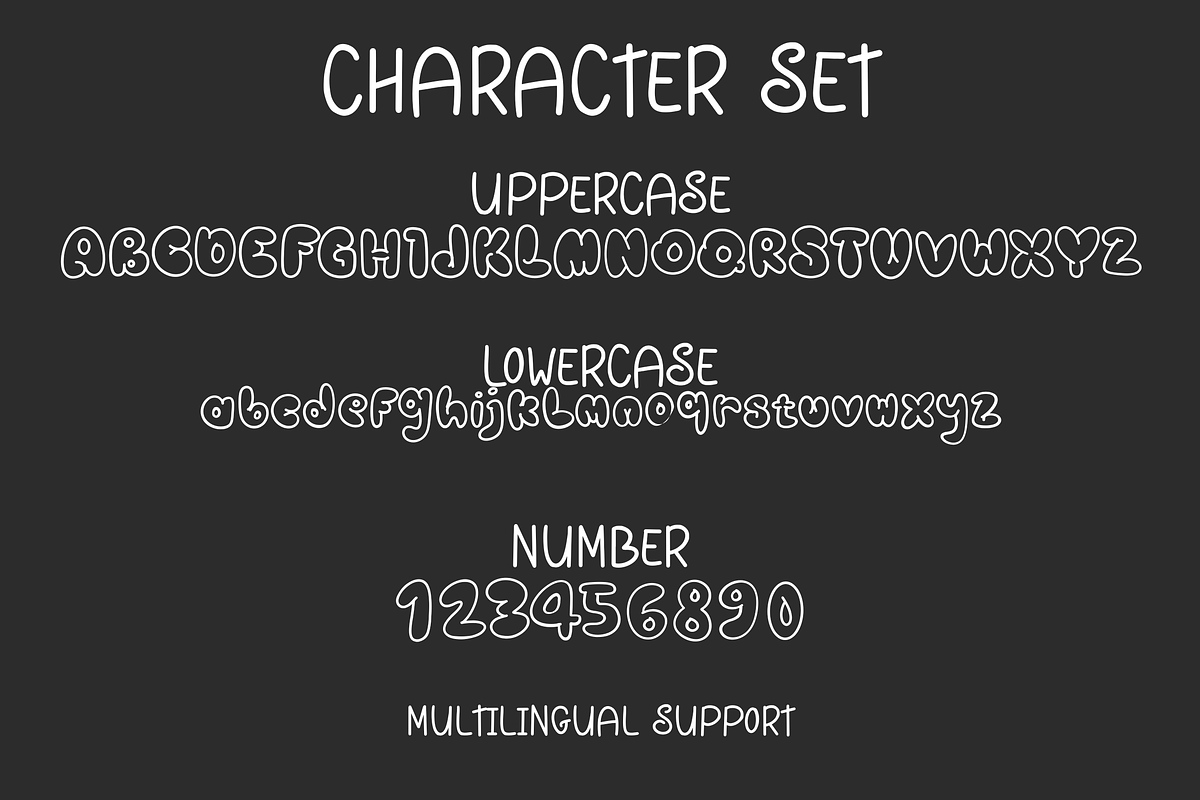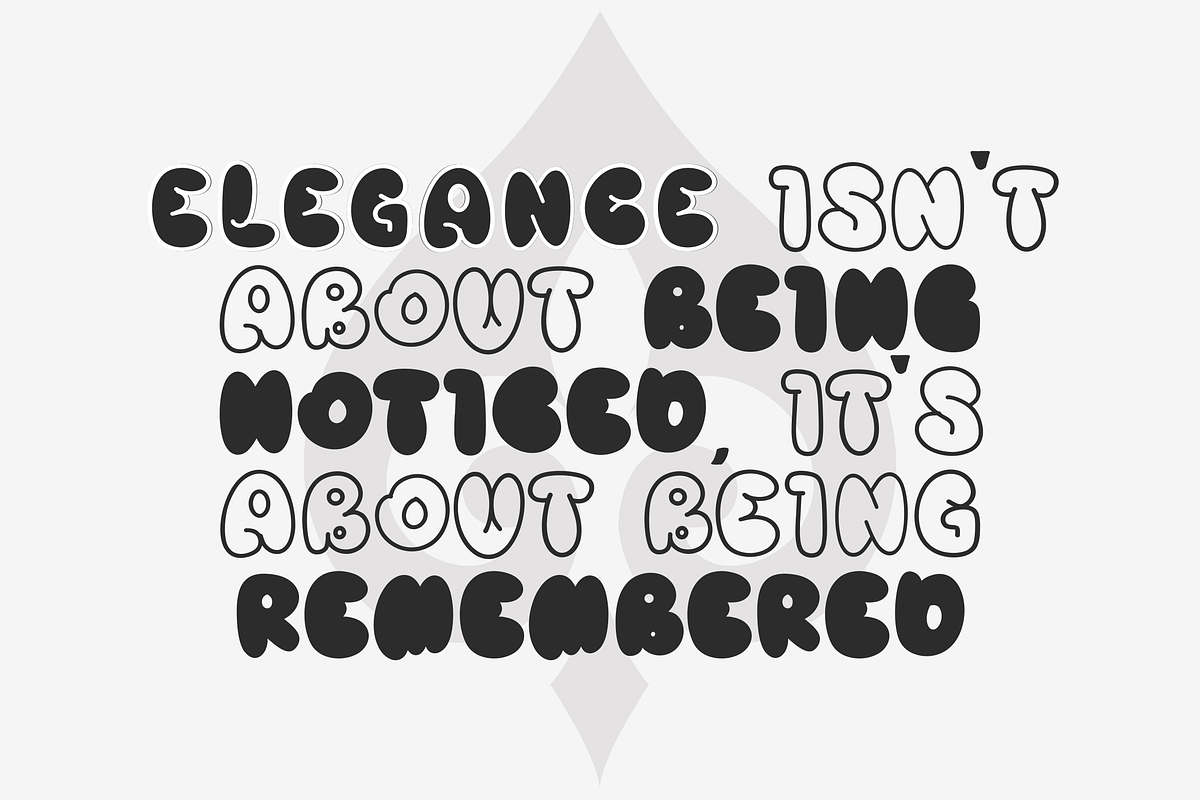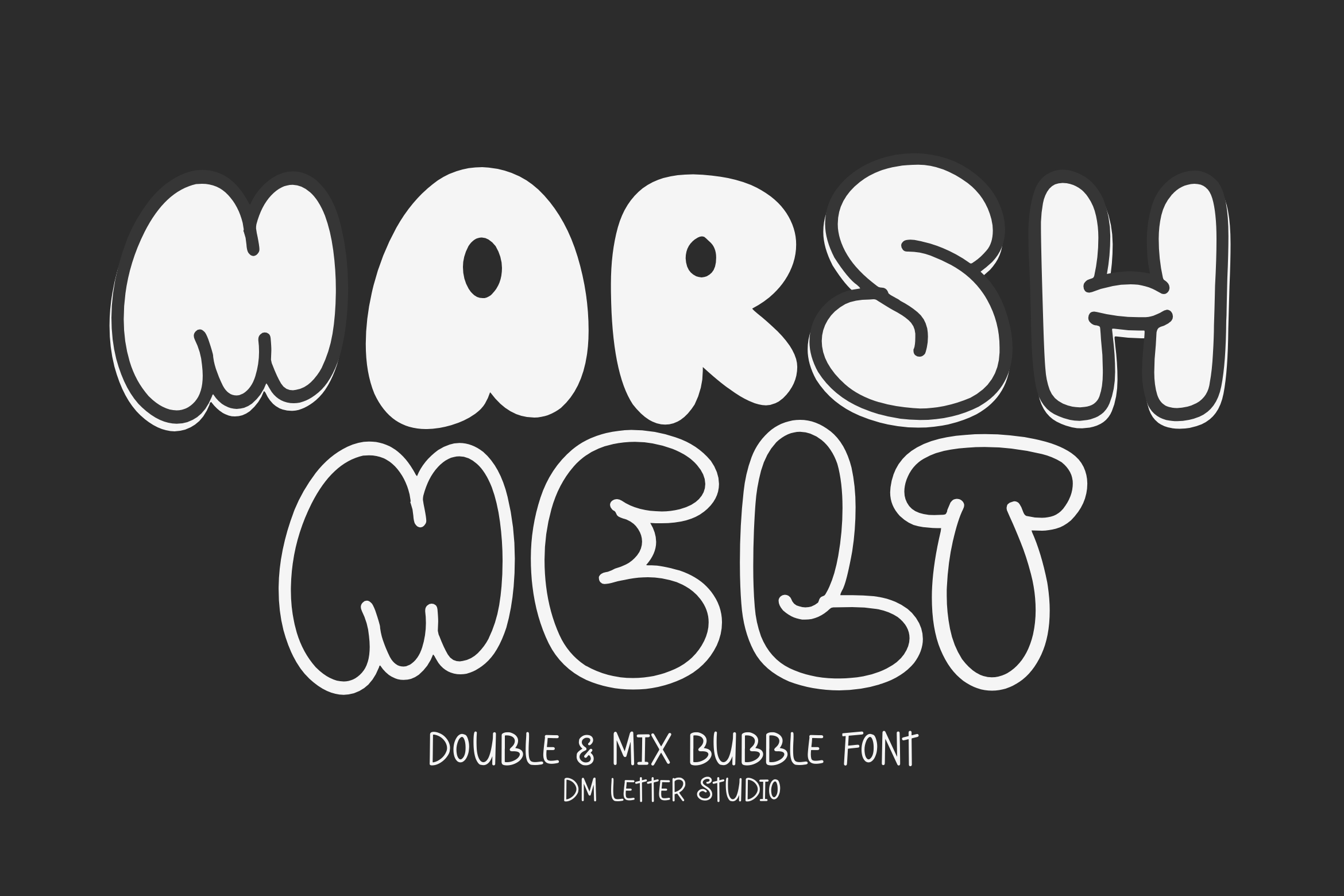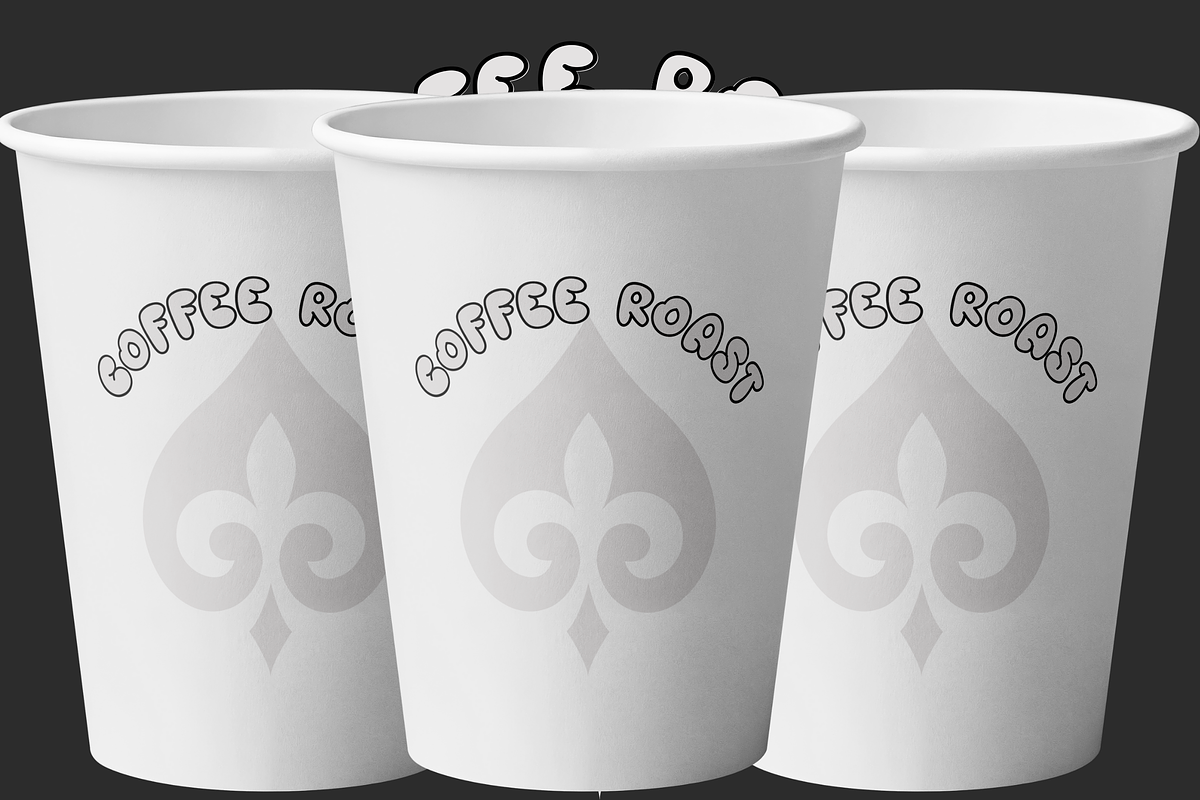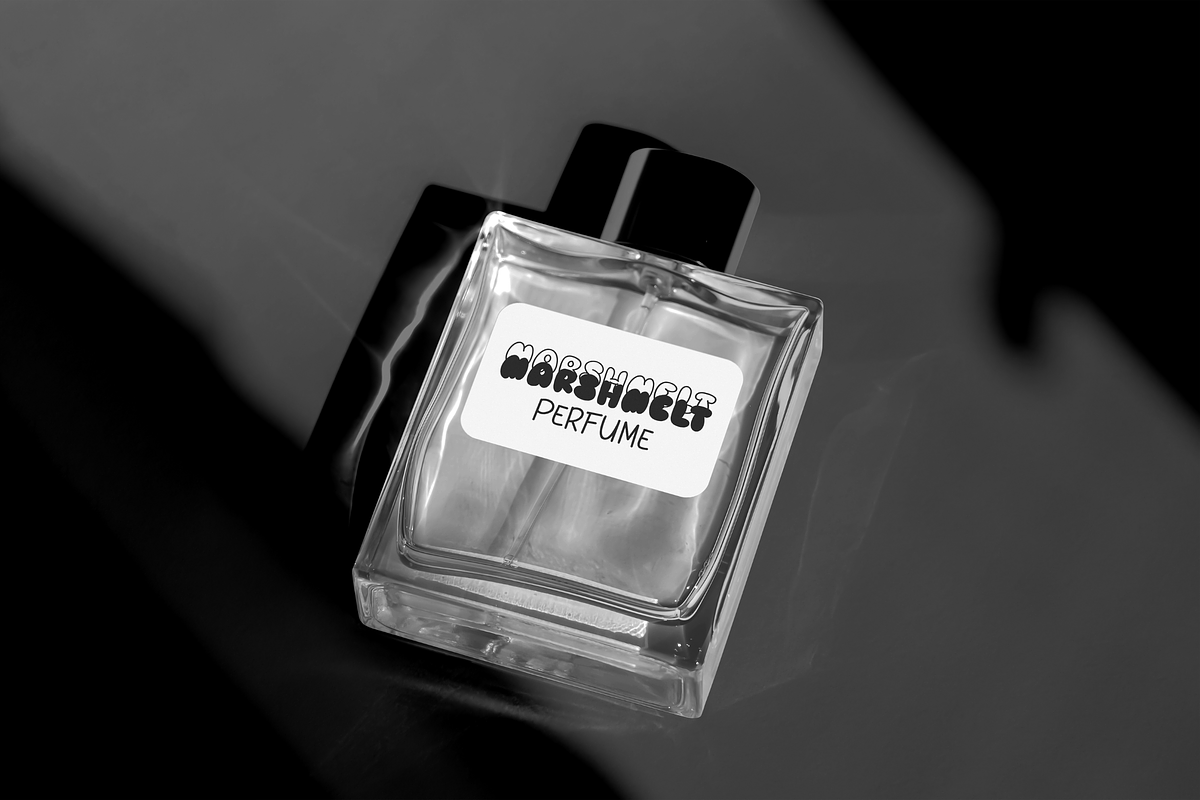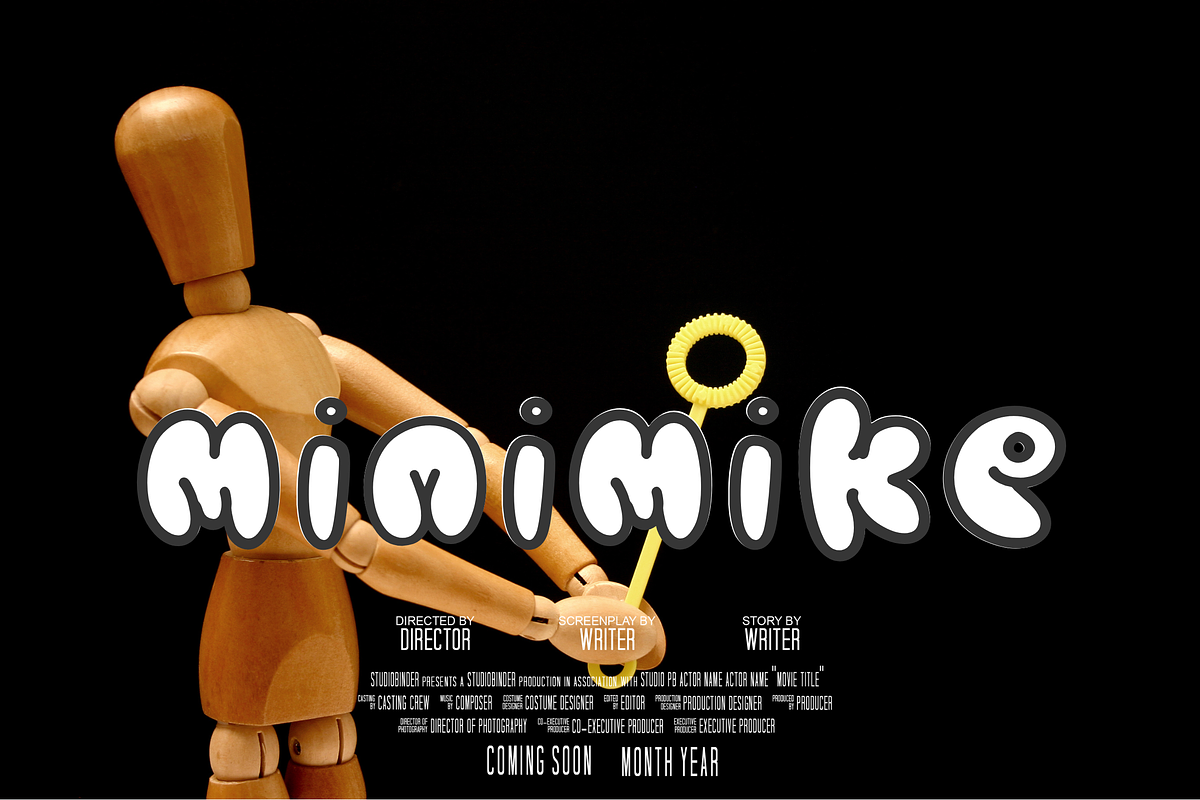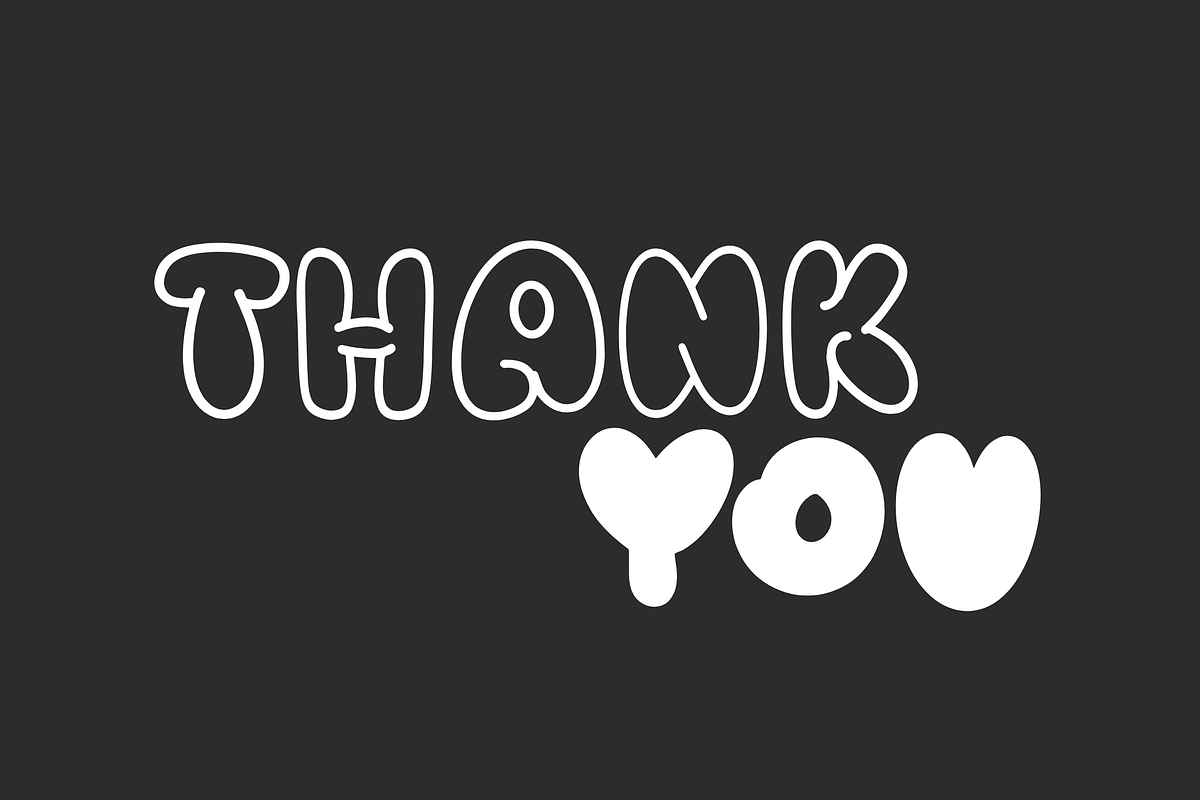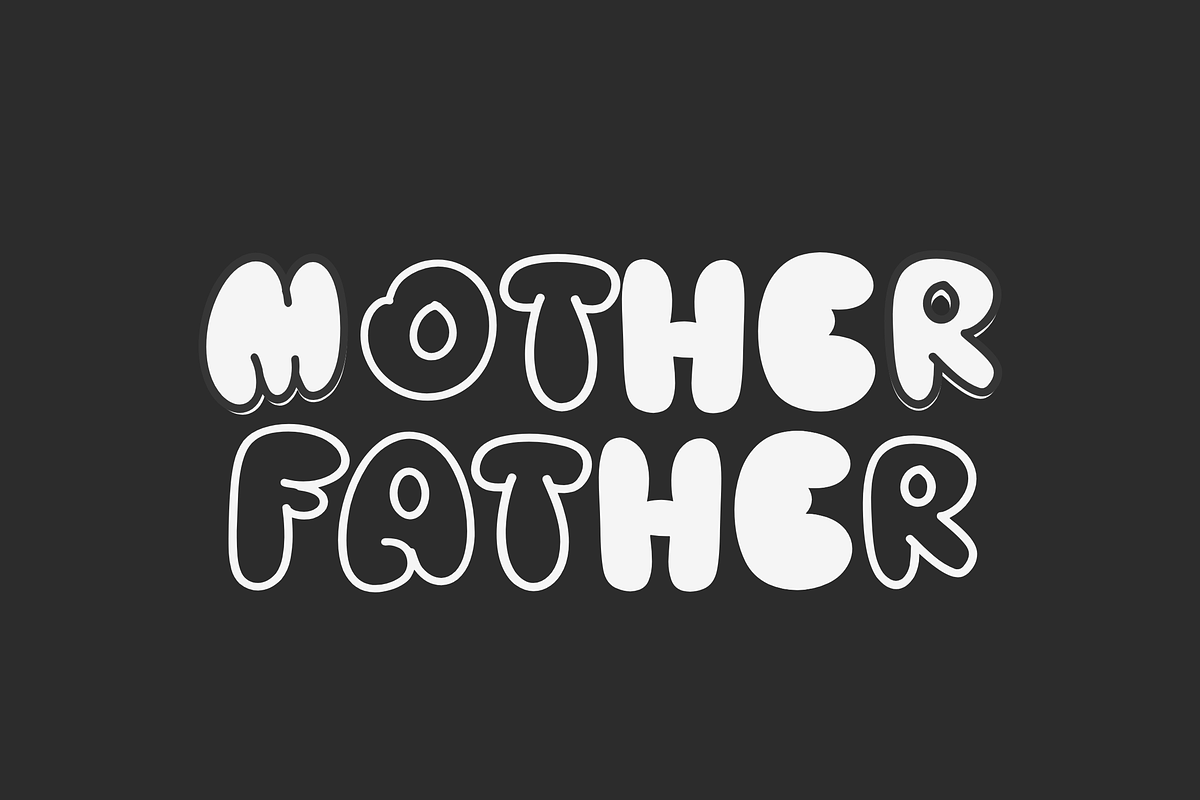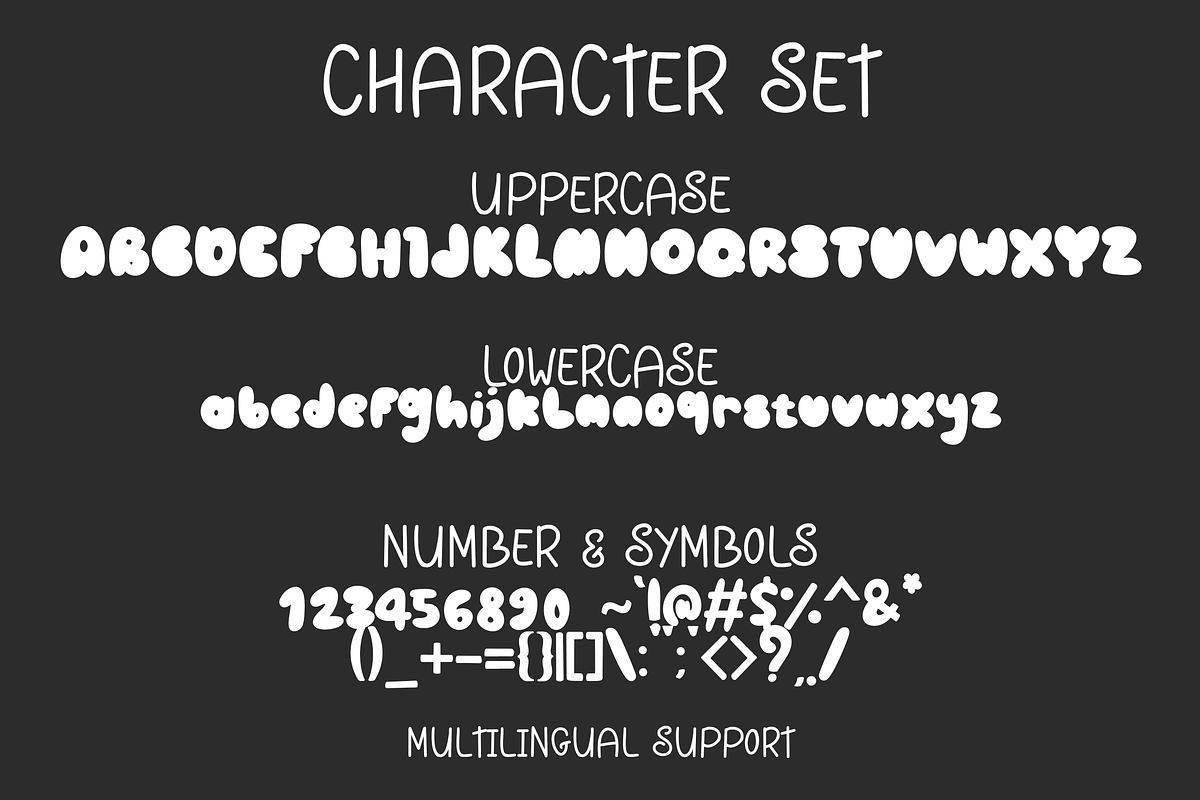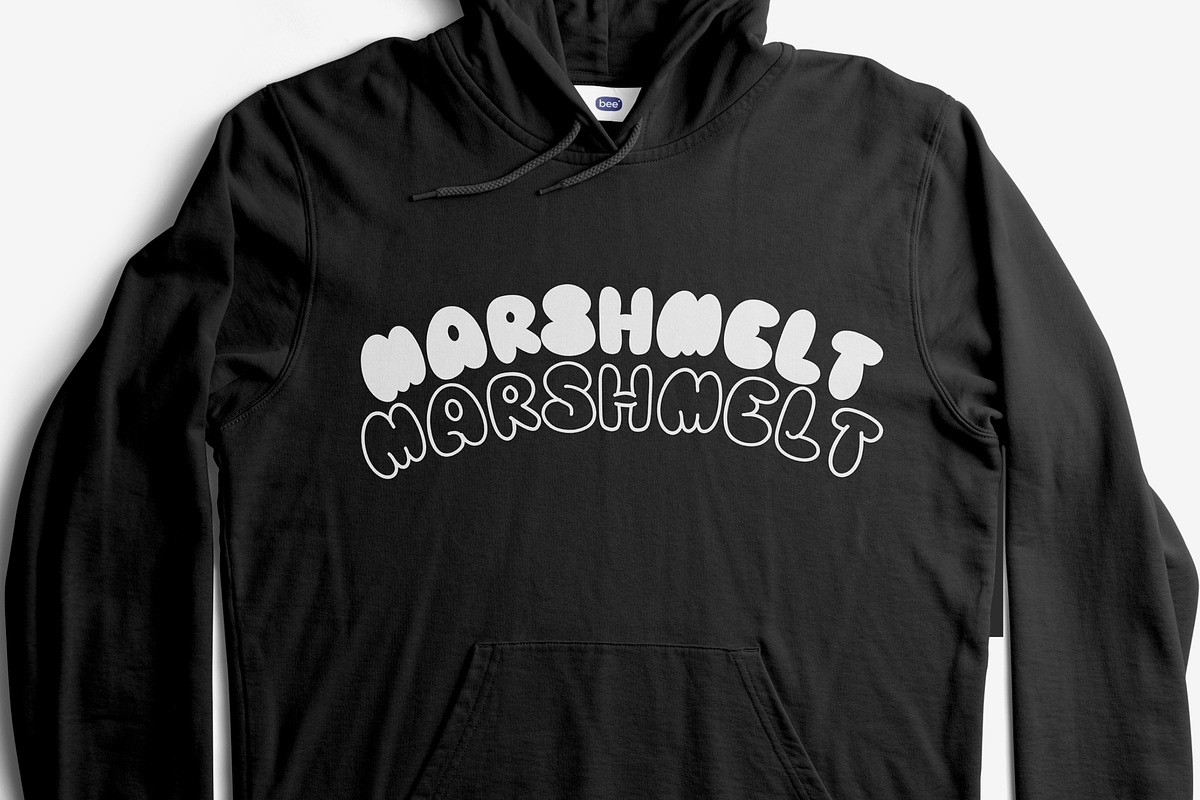
Marshmelt Font Duo
Marshmelt Font Duo – Regular & Outline Styles
Marshmelt is a soft and playful display font duo that comes in two styles: Regular and Outline. With rounded edges and a puffy, marshmallow-inspired feel, this duo is perfect for designs that need warmth, fun, and charm. Use the solid style for bold headlines or pair it with the outline version for layered effects that pop in print and digital designs.
Font Duo Pack: Includes Regular (solid) and Outline versions for versatile design options.
Playful Puffy Style: Rounded, marshmallow-like letterforms that feel fun and approachable.
Perfect for Cute & Bold Designs: Great for kids’ projects, logos, packaging, stickers, social media, and crafts.
Layered Effects Ready: Mix Regular + Outline for dynamic typography in posters, merch, and branding.
Complete Character Set: A–Z uppercase, lowercase, numerals, punctuation, and multilingual support.